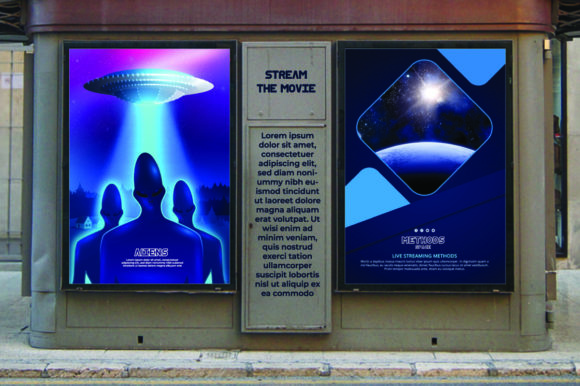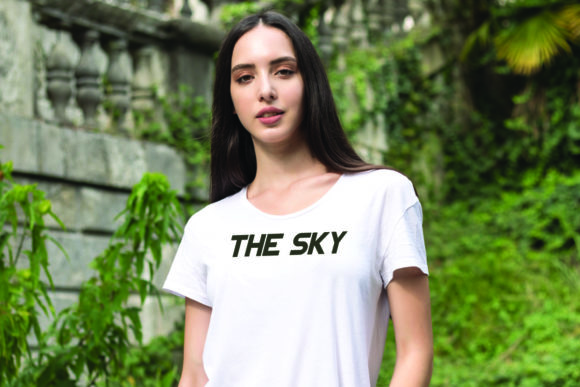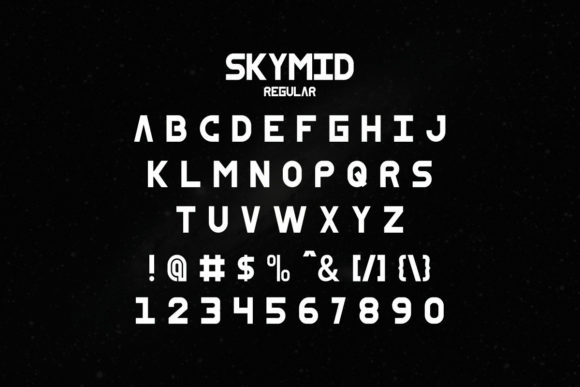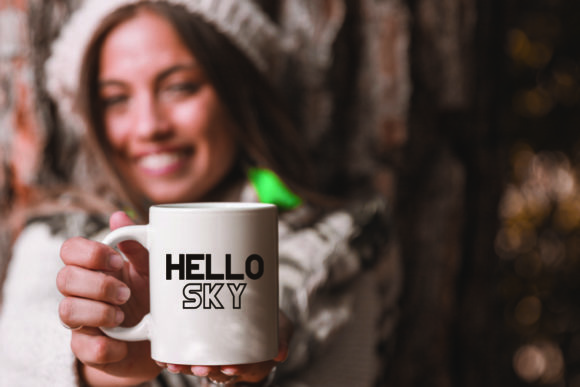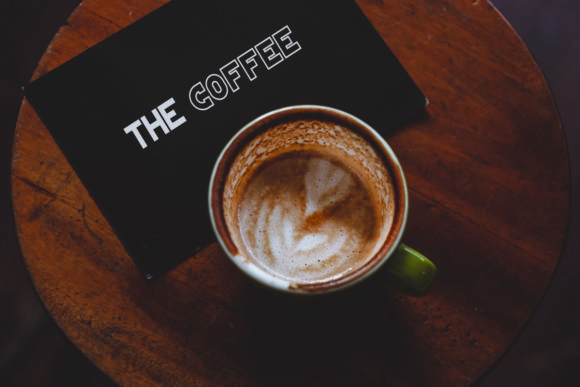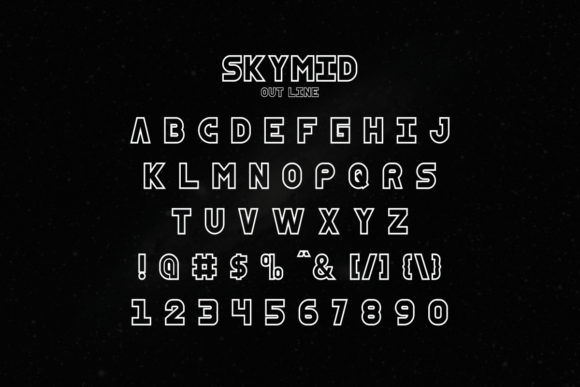
Introduction to SkyMid Font
SkyMid is a modern sans serif font with a cool style and bold characters.
It has a unique style that will bring a special effect to your designs This font works great for games, technology, events, headlines, logos, posters, titles, products, etc.
Key Features of SkyMid Font
Why Choose SkyMid Font?
SkyMid Font offers exceptional quality and versatility, making it a valuable addition to your design toolkit. Whether you’re creating for personal projects or commercial use, SkyMid Font delivers professional results.